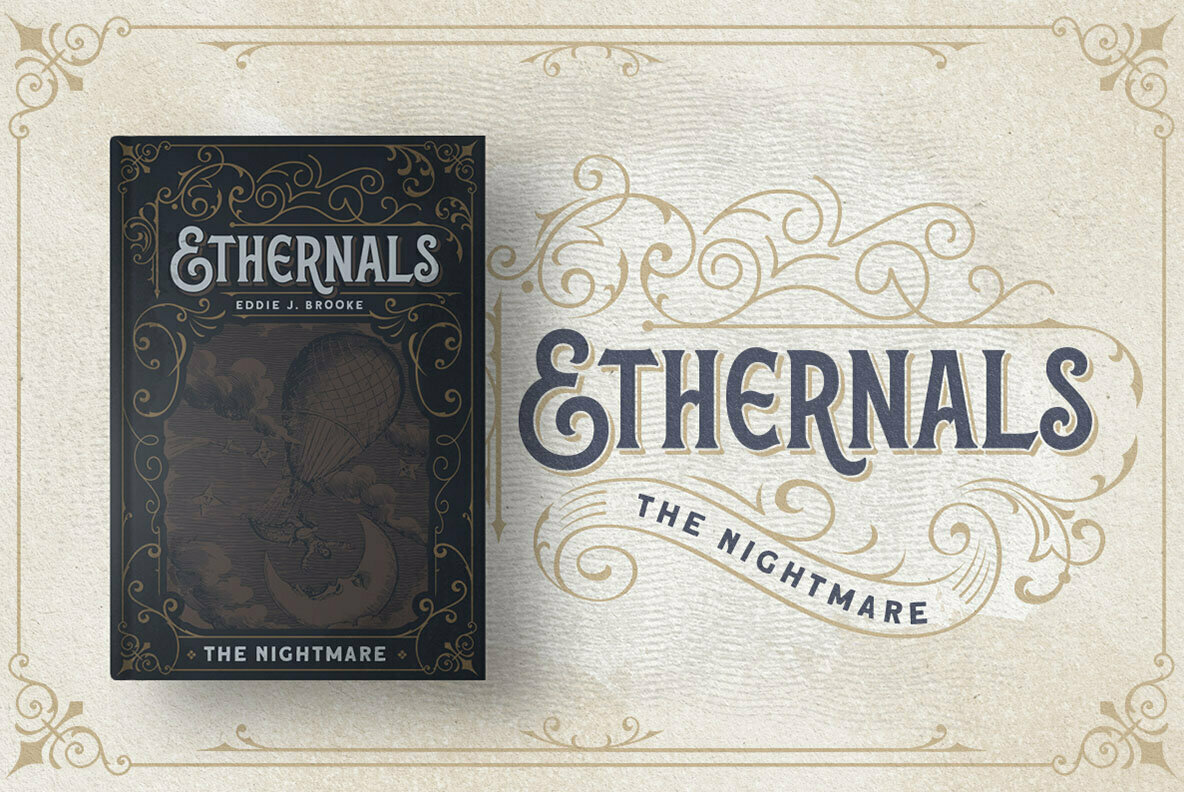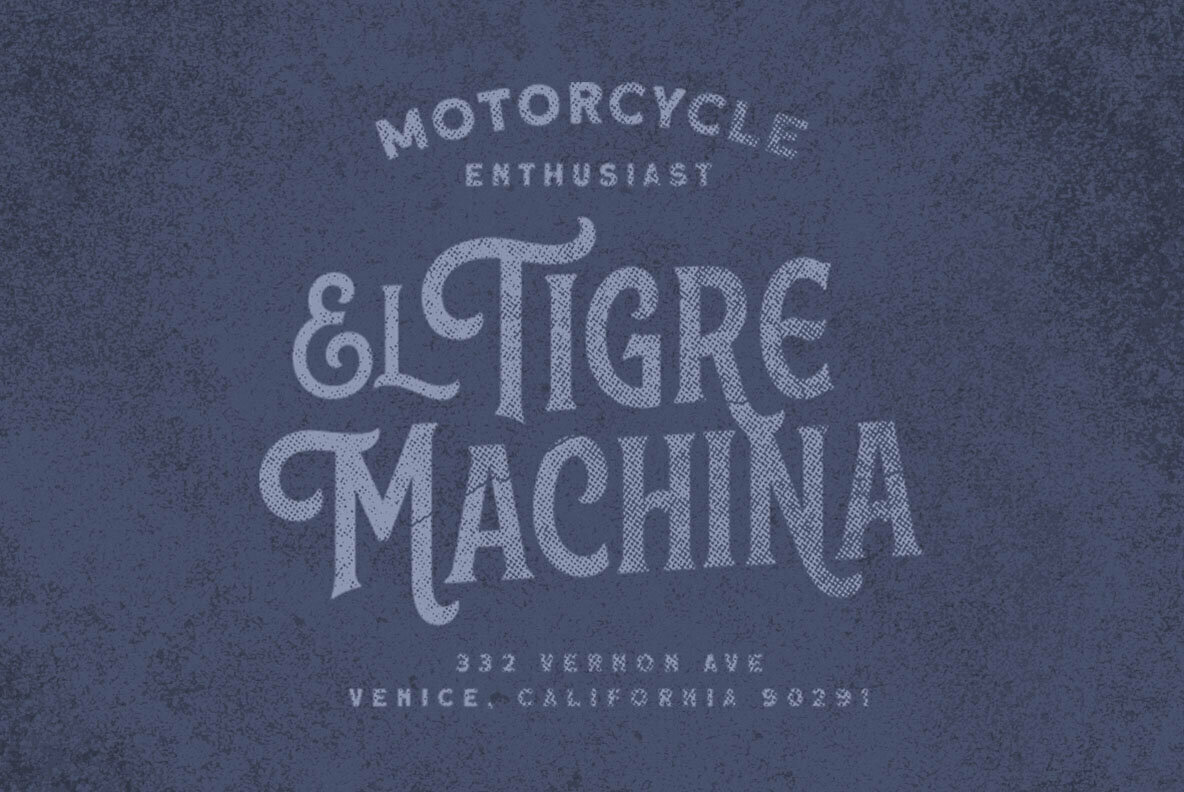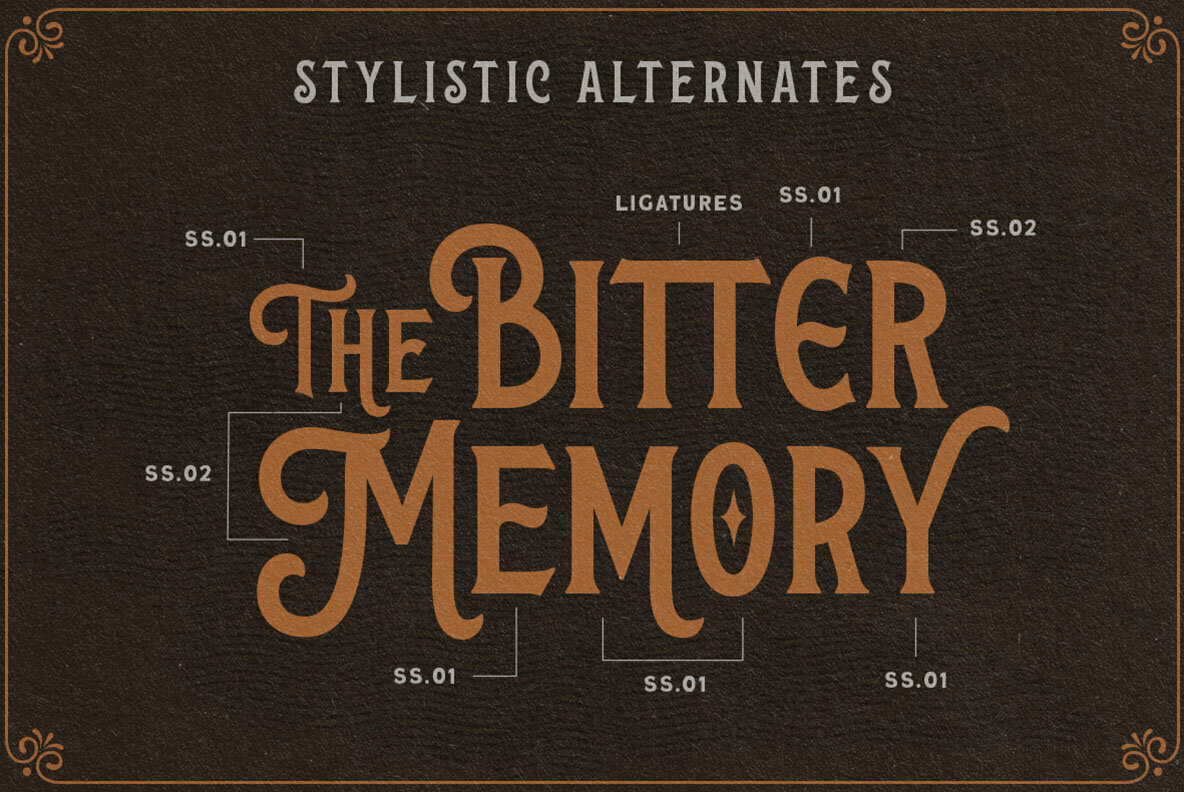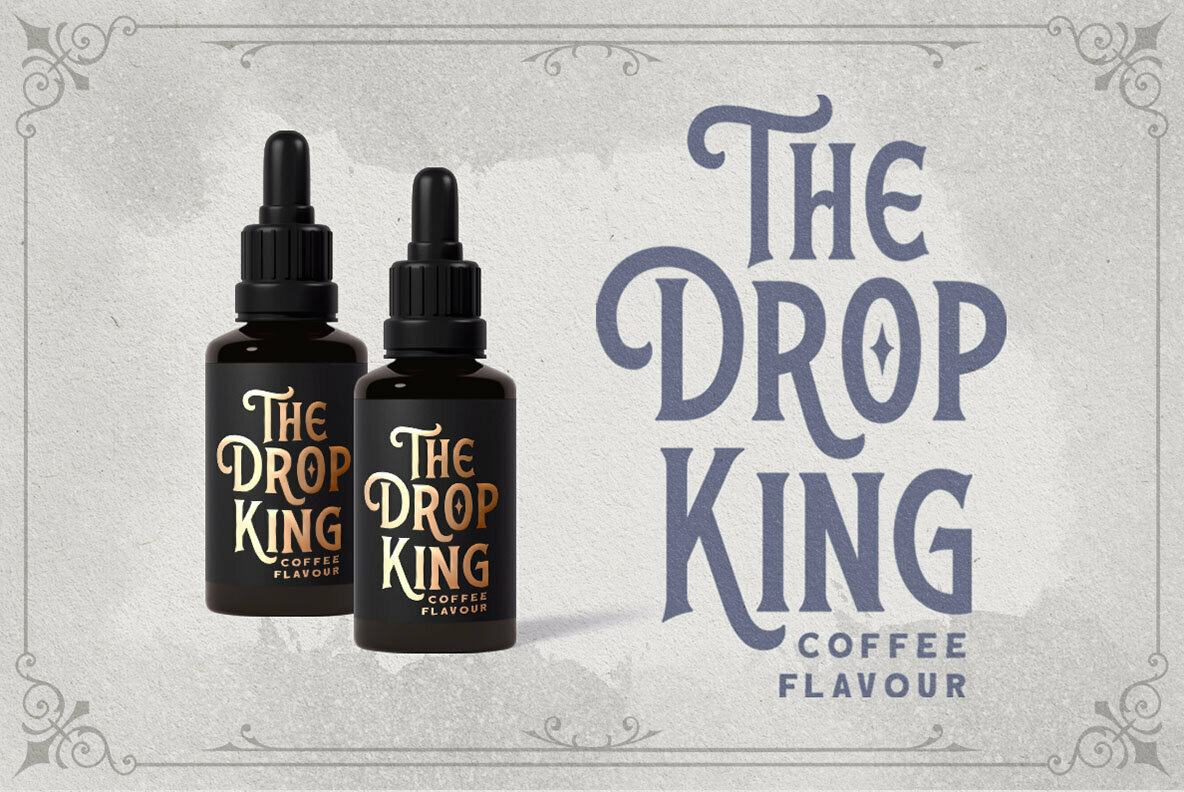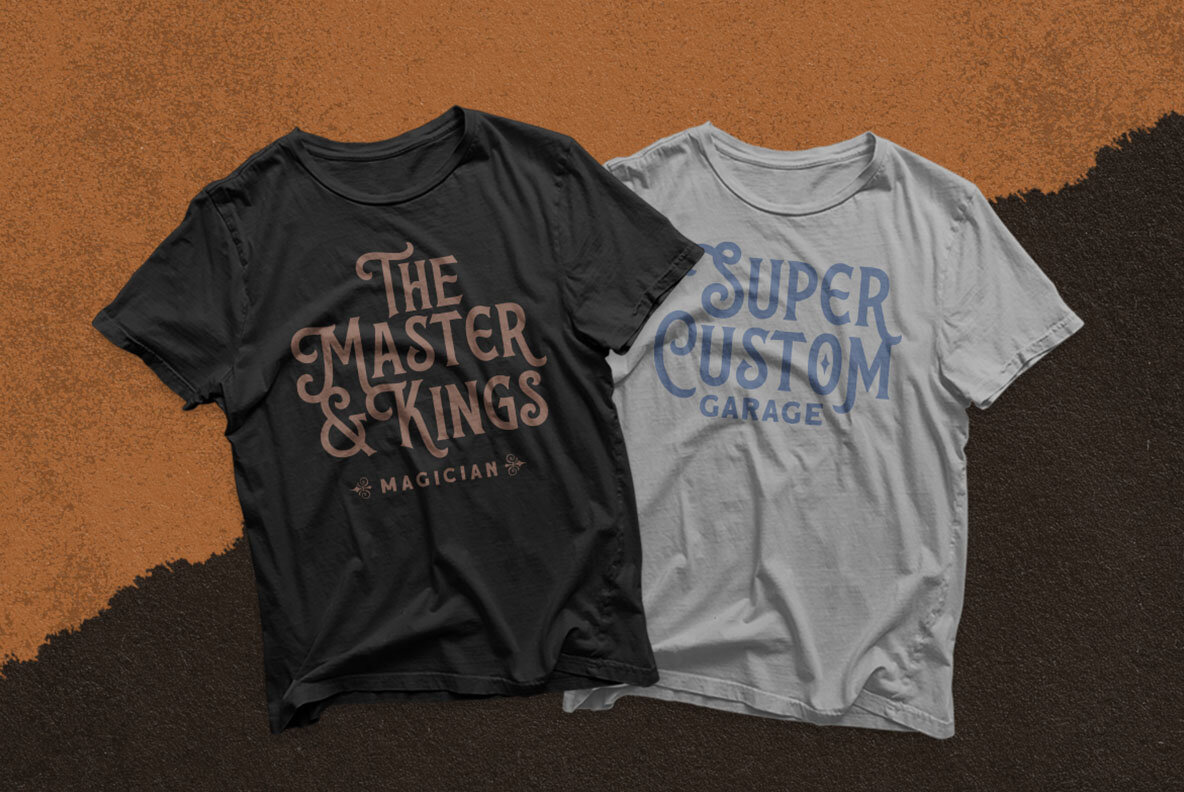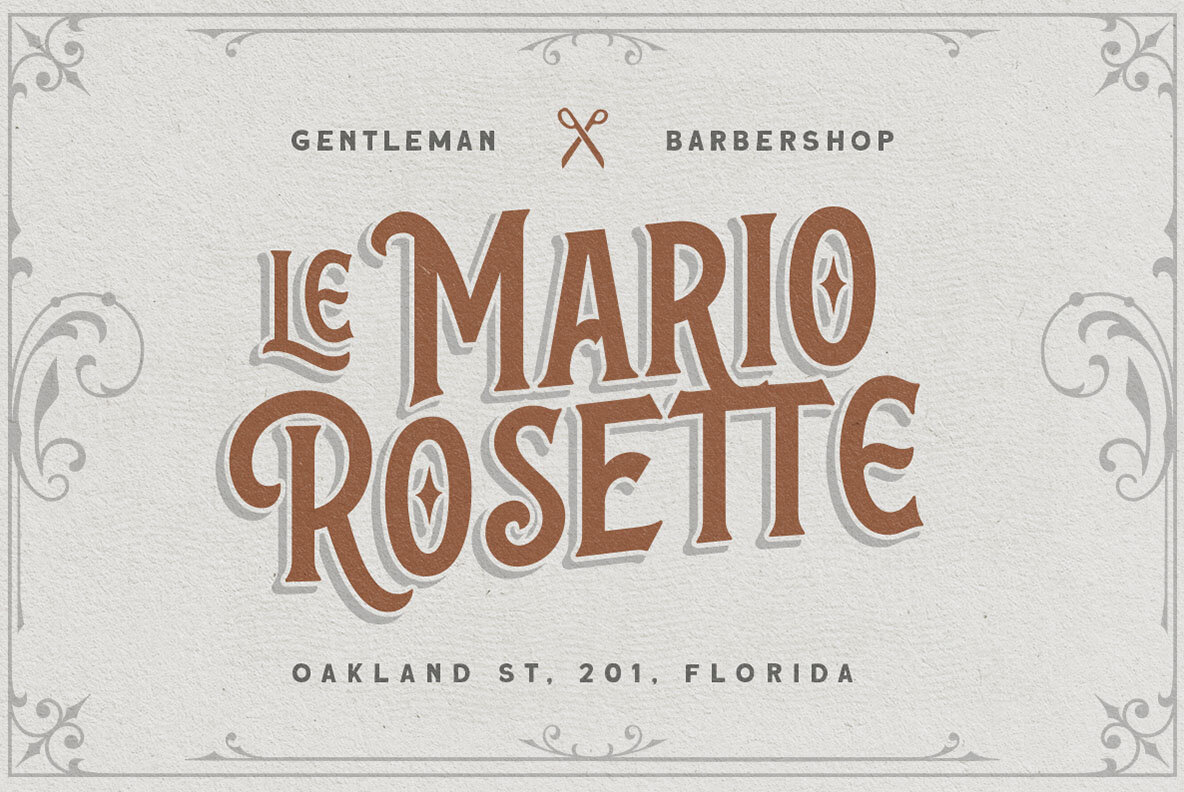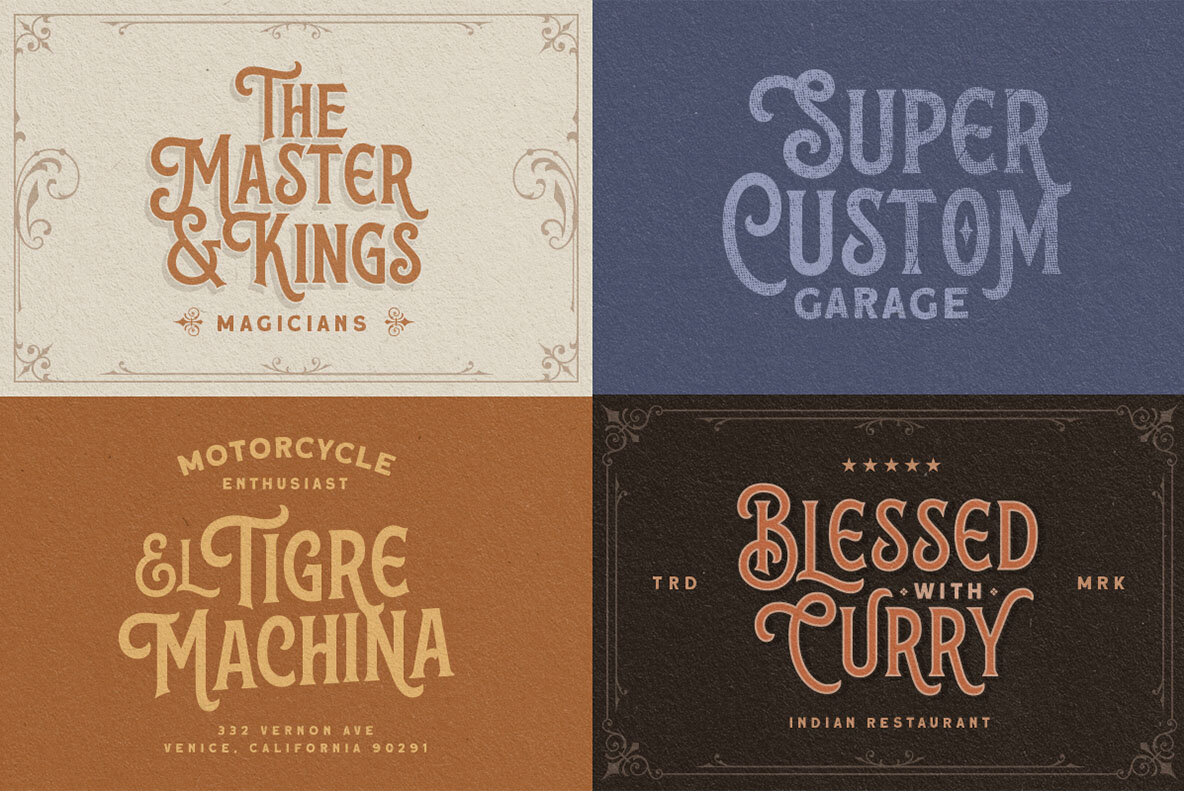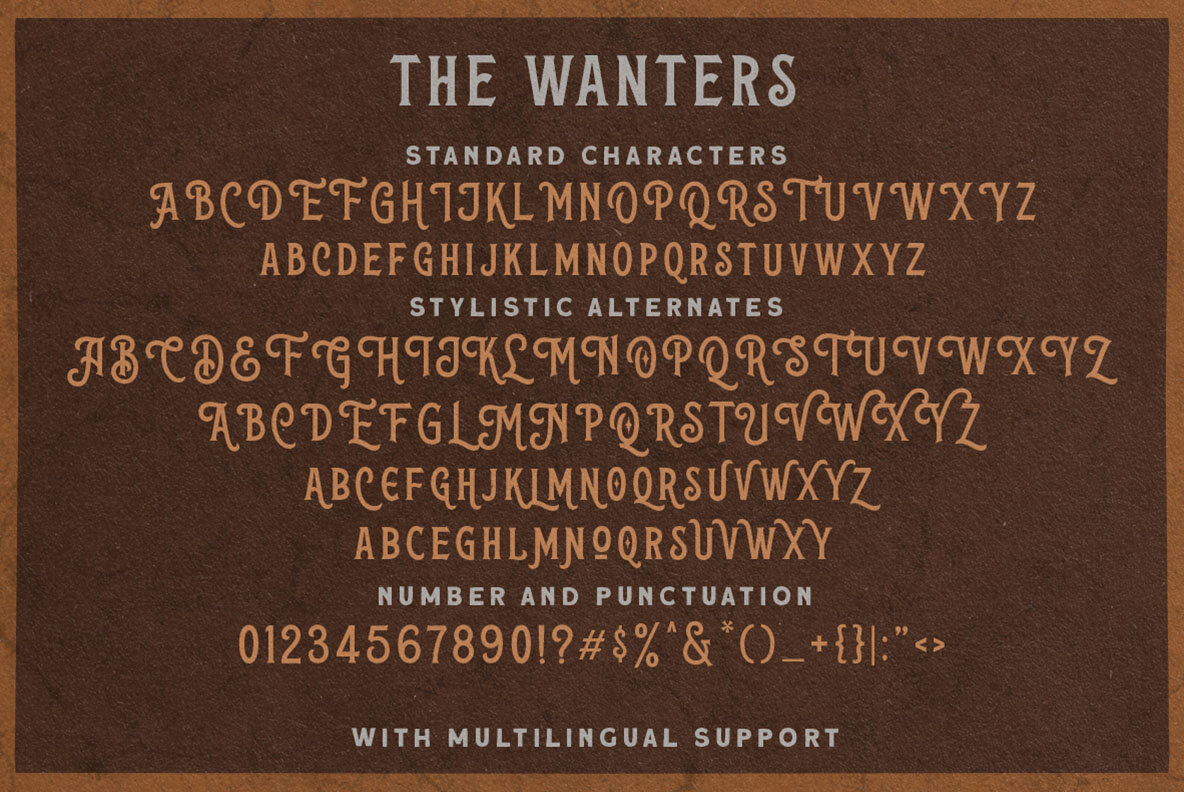
The Wanters Font
The Wanters Regular
The Wanters is a display typeface designed to evoke a sense of nostalgia while maintaining a luxurious, contemporary appeal. Its unique character and ornamental swashes make it an ideal choice for logos, as well as formal documents such as invitations, labels, and greeting cards. This font adds sophistication to magazines, books, packaging, and more, making it suitable for a wide range of design needs from fashion to advertising. For the best creative experience, use software supporting OpenType features and Glyphs panels, like Adobe applications and Corel Draw, to explore all typographic variations.The Wanters: Vintage Elegance Meets Modern Luxury